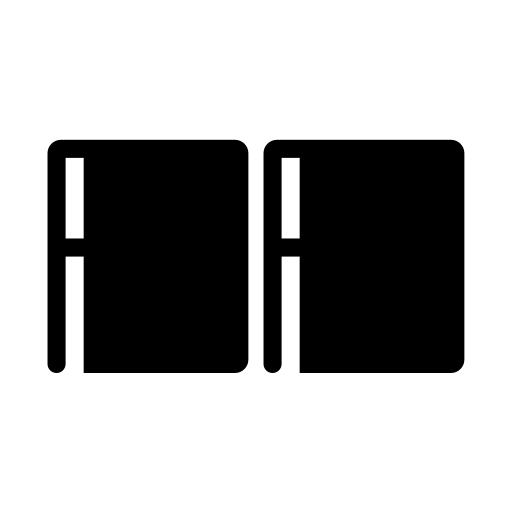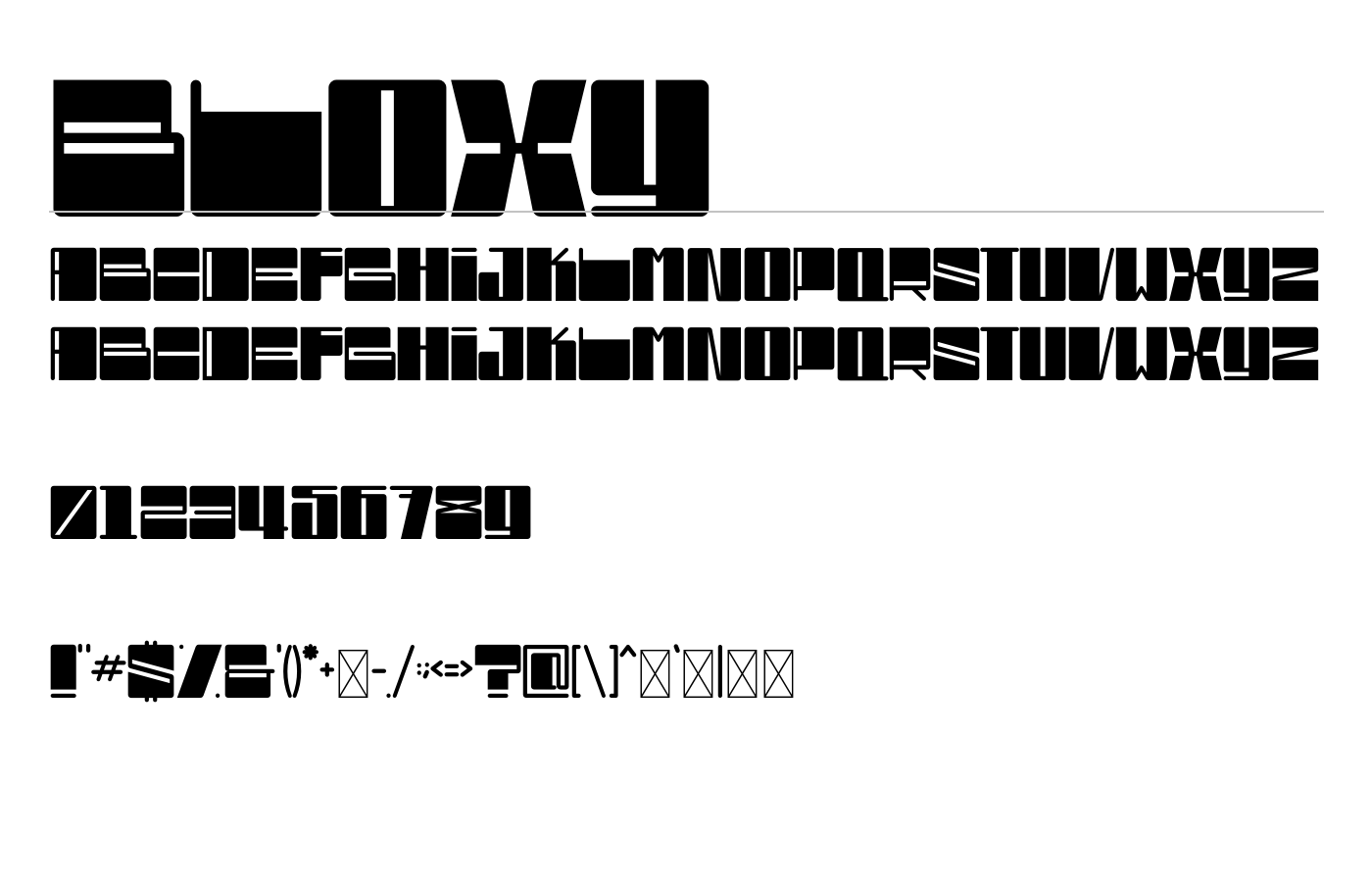
Bloxy Font is a bold, geometric sans serif typeface characterized by its ultra-thick, block-like letterforms and sharp, angular cuts that create a futuristic and industrial feel. With its condensed width and high visual impact, this font works best for striking headlines, logos, and display purposes where a modern, edgy look is desired. Its unique shapes and dense presence make it ideal for branding and designs that aim to stand out with a strong, assertive personality.
Bloxy Font
About Bloxy Font